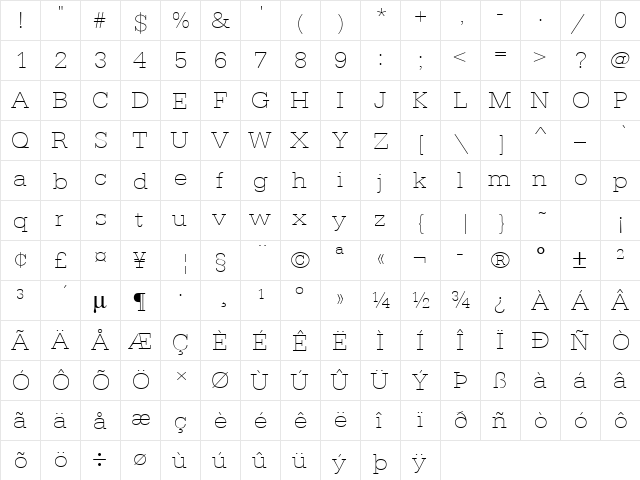
URWTypewriterTExtLigExtWid Regular
Design Context for URWTypewriterTExtLigExtWid Typeface
URWTypewriterTExtLigExtWid brings the precise, column-aligned rhythm of monospaced typography to designs that value technical clarity and systematic order.
A natural fit for code editors, technical documentation, developer-focused branding, and terminal-inspired UI.
Pro Tip: Pair URWTypewriterTExtLigExtWid with a proportional sans for UI contexts where code-style labels and regular body copy need to coexist.